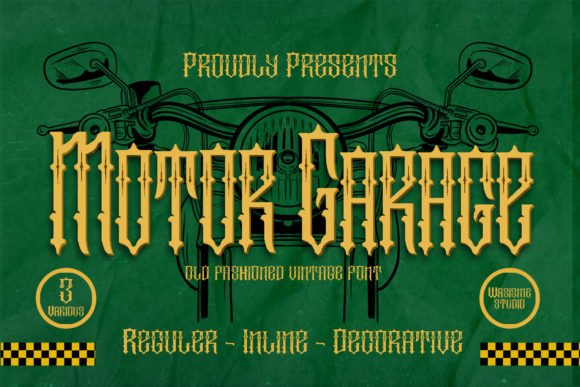
In a world saturated with bland and forgettable web designs, Motor Garage Font emerges as an unexpected hero, ready to transform your creative visions into timeless masterpieces. This extraordinary blackletter font, crafted with meticulous care by Wasisme Studio, possesses an undeniable vintage charm that will effortlessly transport your audience to an era of nostalgia and elegance. With Motor Garage Font at your disposal, you can craft designs that radiate an authentic retro aura, capturing the essence of bygone times.
Unleash your creativity and let the distinctive glyphs and harmonious letterforms of Motor Garage Font guide you on an artistic journey. Its captivating curves and striking lines evoke a sense of nostalgia, seamlessly merging the past with the present. Whether you're designing posters, logos, branding materials, or social media graphics, Motor Garage Font will elevate your work to new heights of visual intrigue.
Step into a realm of vintage sophistication with Motor Garage Font. Let its timeless appeal breathe life into your designs, leaving an unforgettable impression on your audience. Embrace the allure of yesteryear and create designs that resonate with both contemporary and classic aesthetics. Motor Garage Font is more than just a font; it's a gateway to a bygone era, waiting to be rediscovered.